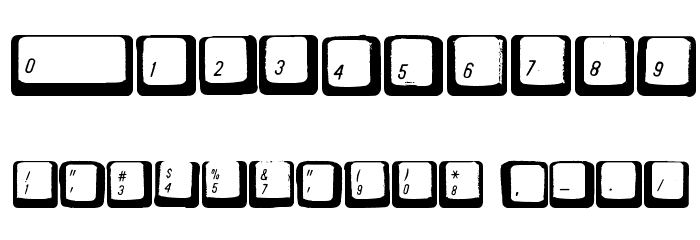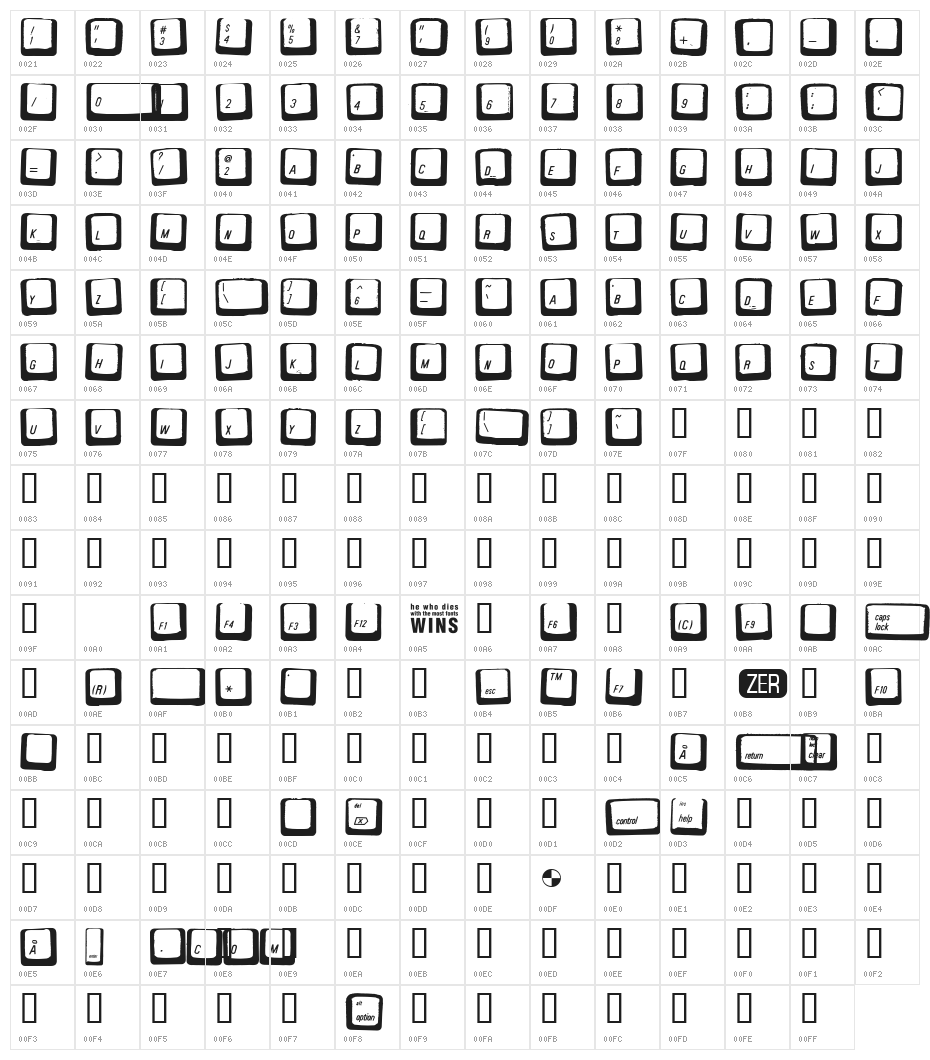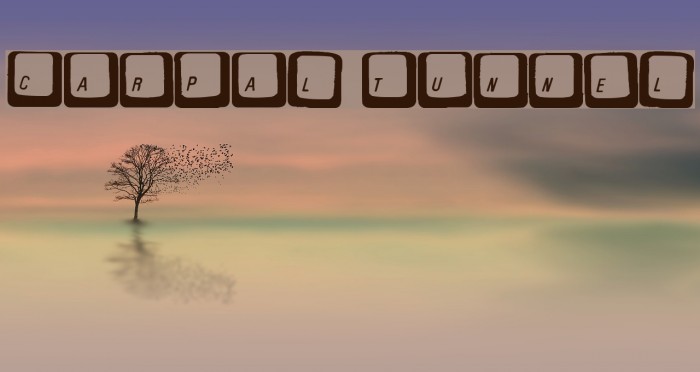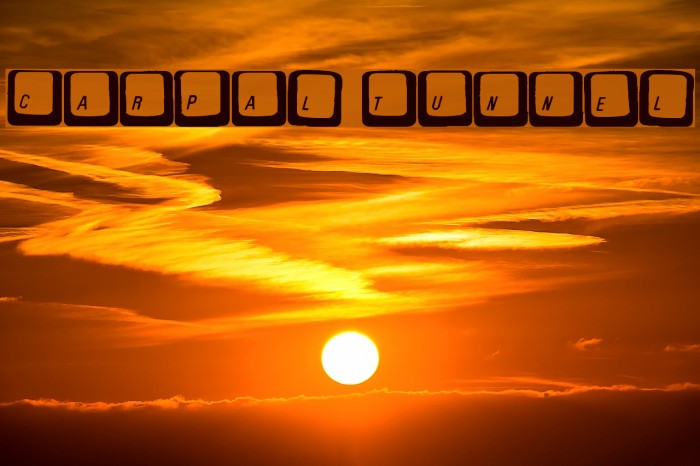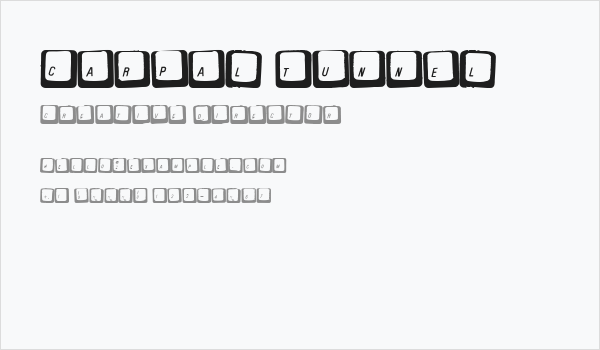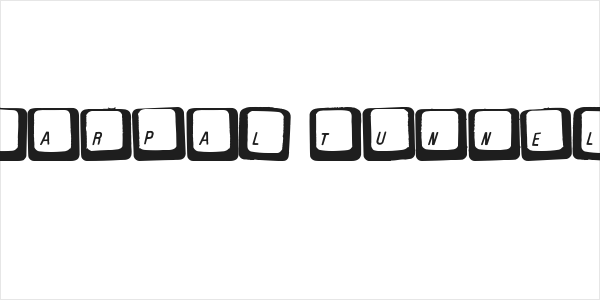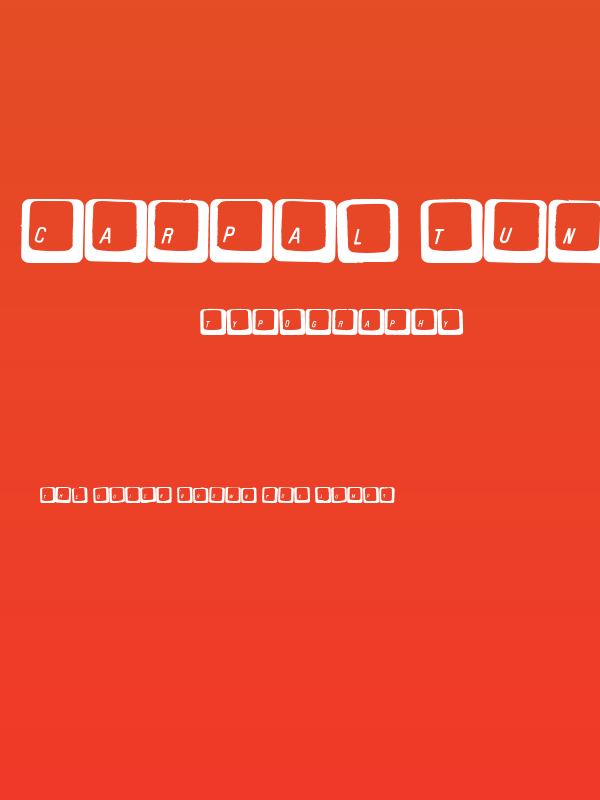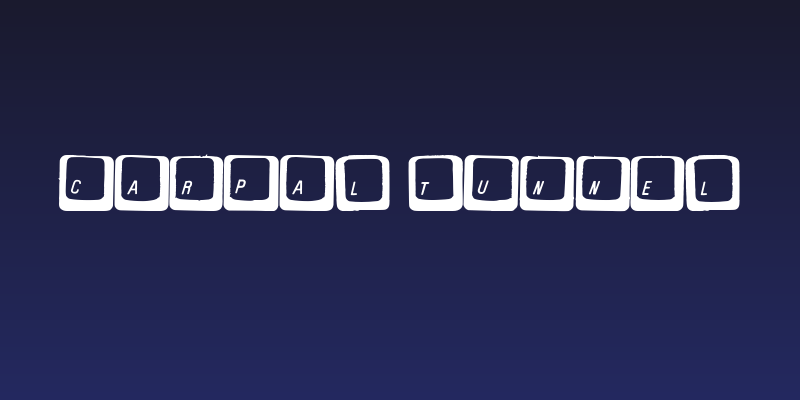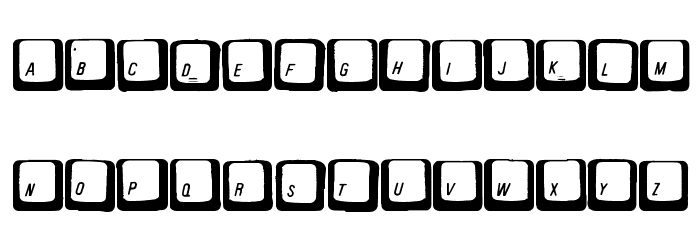
Carpal Tunnel Font
Carpal Tunnel Description
This font features a distinctive design reminiscent of vintage typewriter keys, each character encased in a square with a bold outline. The letters are uppercase and lowercase, with a uniform, monospaced appearance that evokes a sense of nostalgia. The numbers and special characters follow the same style, maintaining consistency across the set. The font's unique aesthetic makes it ideal for projects that require a retro or mechanical feel, while the bold outlines ensure readability and impact. Its playful yet structured design is perfect for creative and artistic applications.
Overall StyleVintage
Proposed ProjectsIdeal for retro-themed designs, posters, artistic projects, and branding that requires a mechanical or nostalgic touch.